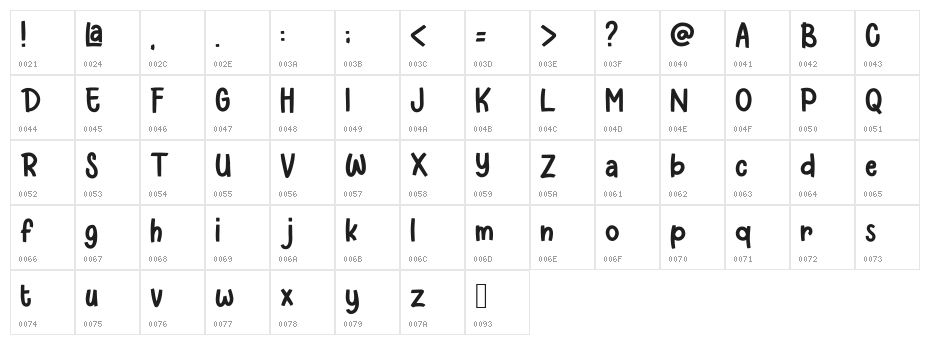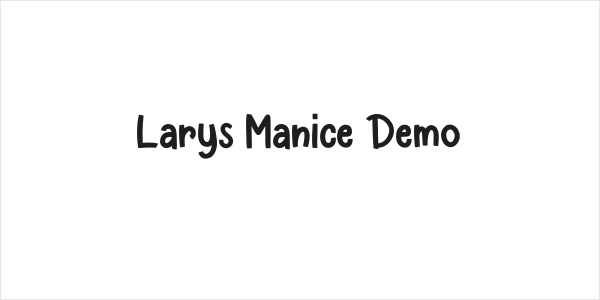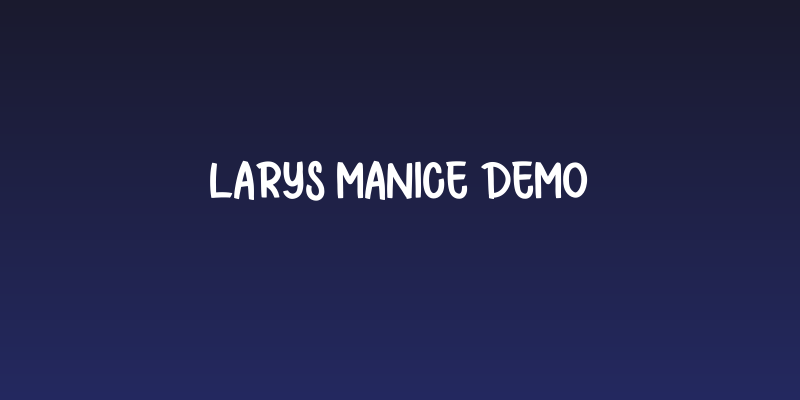
Larys Manice Demo Font
Larys Manice Demo Description
This font features a playful and whimsical style with a handwritten appearance. The characters are bold and rounded, giving them a friendly and approachable look. The uppercase and lowercase letters maintain a consistent style, with slightly exaggerated curves and a casual flow. The numbers and special characters are designed to match the overall aesthetic, making the font versatile for various uses. The strokes are uniform in thickness, contributing to a cohesive and balanced design. This font is ideal for projects that require a fun and informal touch.
| Proposed Projects | Ideal for children's books, greeting cards, playful branding, and social media graphics. |